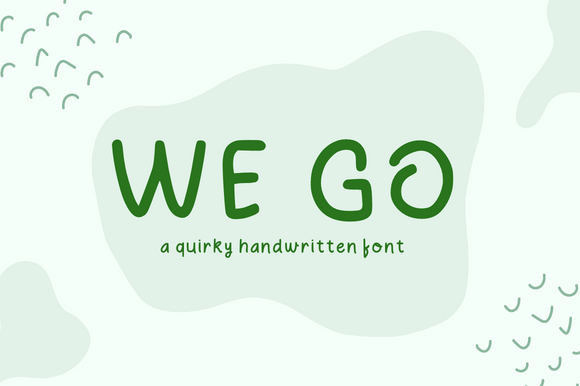
We Go Font: The Ultimate Display Font for Friendly and Playful Designs
Are you tired of using the same old fonts for your designs? Look no further than We Go Font, a childish and easy-to-read display font that’s perfect for adding a touch of friendliness to your projects. Whether you’re a crafty DIY enthusiast, a digital designer, or a presentation pro, We Go Font is sure to become your new go-to font for all occasions.
What Makes We Go Font So Special?
We Go Font is a unique and charming display font that’s designed to convey impeccable friendliness. Its childish and playful style makes it perfect for a wide range of design projects, from crafts and digital designs to presentations and greeting cards.
- Easy to Read: We Go Font is designed to be easy to read, even at small sizes. This makes it perfect for use in digital designs, presentations, and other applications where legibility is key.
- Childish and Playful: We Go Font has a fun and playful style that’s sure to add a touch of whimsy to your designs. Its childish charm makes it perfect for use in crafts, greeting cards, and other projects where a friendly tone is desired.
- Versatile: We Go Font is a versatile font that can be used for a wide range of design projects. Whether you’re creating a digital design, a presentation, or a handmade craft, We Go Font is sure to be a great choice.
Uses for We Go Font
We Go Font is a versatile font that can be used for a wide range of design projects. Here are just a few ideas to get you started:
- Crafts: We Go Font is perfect for use in handmade crafts, such as scrapbooking, card making, and other paper crafts.
- Digital Design: We Go Font is a great choice for digital designers who want to add a touch of friendliness to their designs. Use it in social media graphics, blog posts, and other digital applications.
- Presentations: We Go Font is a great choice for presentations, as it’s easy to read and conveys a friendly tone.
- Greeting Cards: We Go Font is perfect for use in greeting cards, as it’s childish and playful style makes it perfect for conveying friendly sentiments.
The Benefits of Using We Go Font
There are many benefits to using We Go Font in your designs. Here are just a few:
- Friendliness: We Go Font conveys impeccable friendliness, making it perfect for designs where a welcoming tone is desired.
- Legibility: We Go Font is easy to read, even at small sizes, making it perfect for use in digital designs and other applications where legibility is key.
- Versatility: We Go Font is a versatile font that can be used for a wide range of design projects, from crafts and digital designs to presentations and greeting cards.
- Uniqueness: We Go Font has a unique and charming style that’s sure to make your designs stand out from the crowd.
Tips for Using We Go Font
Here are a few tips for using We Go Font in your designs:
- Use it in combination with other fonts: We Go Font is a great choice for use in combination with other fonts. Try pairing it with a bold font for a fun and playful look.
- Experiment with different colors: We Go Font looks great in a wide range of colors. Experiment with different colors to find the perfect look for your design.
- Use it for headings and titles: We Go Font is perfect for use in headings and titles, as its childish and playful style makes it perfect for grabbing attention.
In conclusion, We Go Font is a unique and charming display font that’s perfect for adding a touch of friendliness to your designs. Its childish and playful style makes it perfect for a wide range of design projects, from crafts and digital designs to presentations and greeting cards. With its ease of use, legibility, and versatility, We Go Font is sure to become your new go-to font for all occasions.